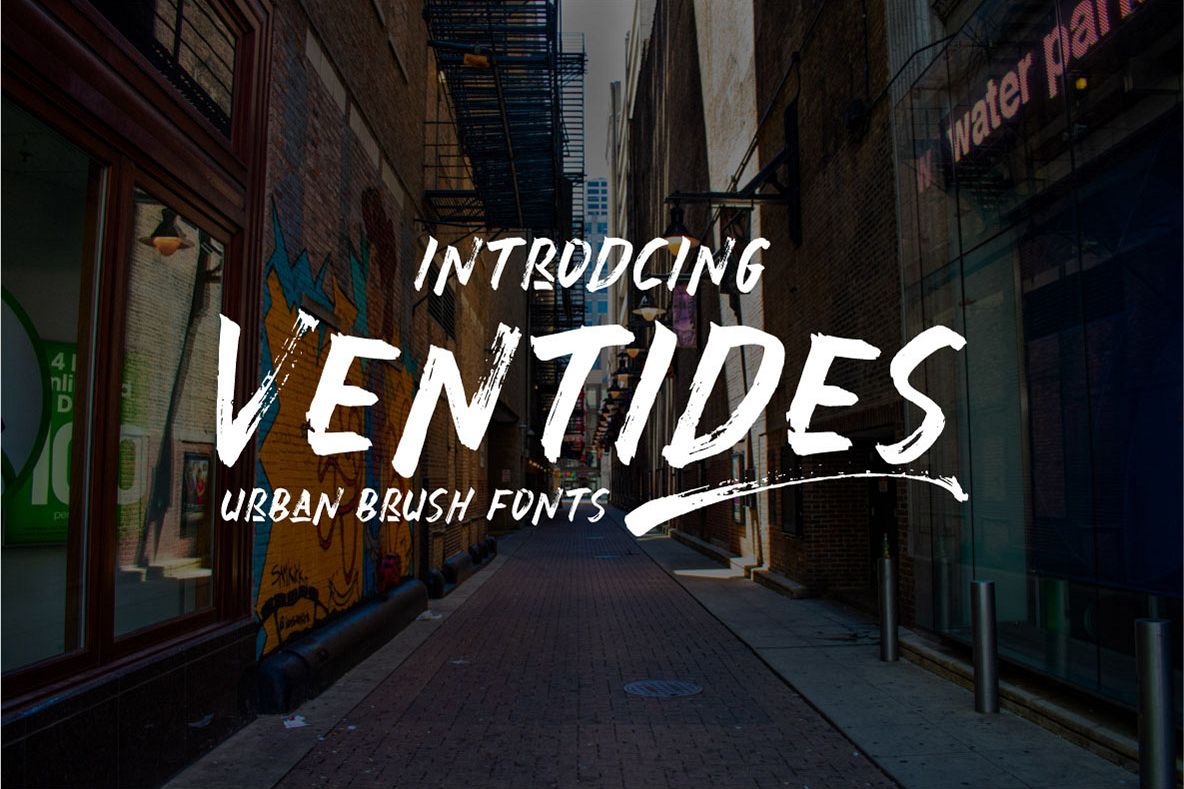
Ventides | Urban Brush Fonts
Introducing, The Ventides a brand new capital hand brush font with 5 swash!
- Ventides Regular
- Ventides Italic ~ A slanted version of the regular font